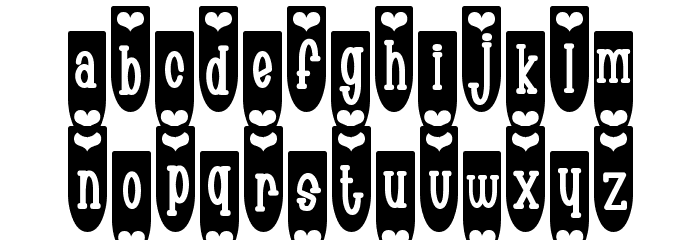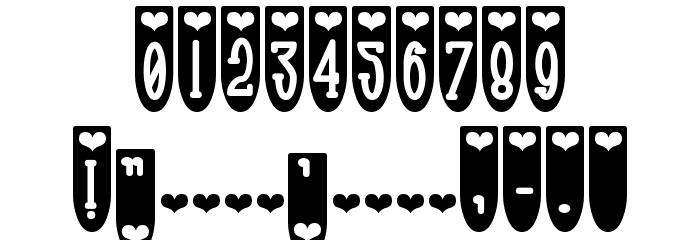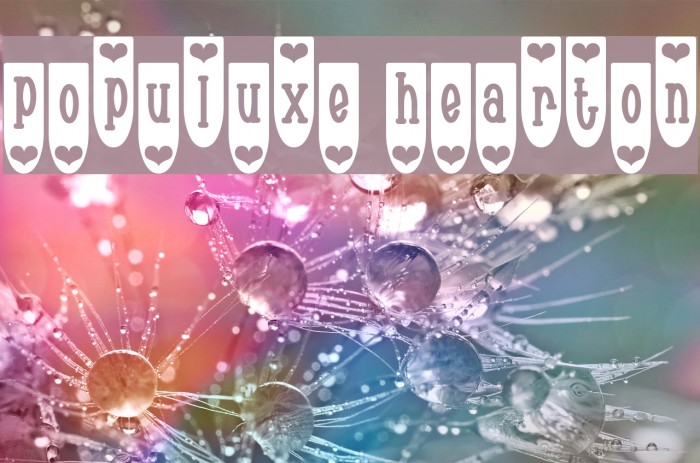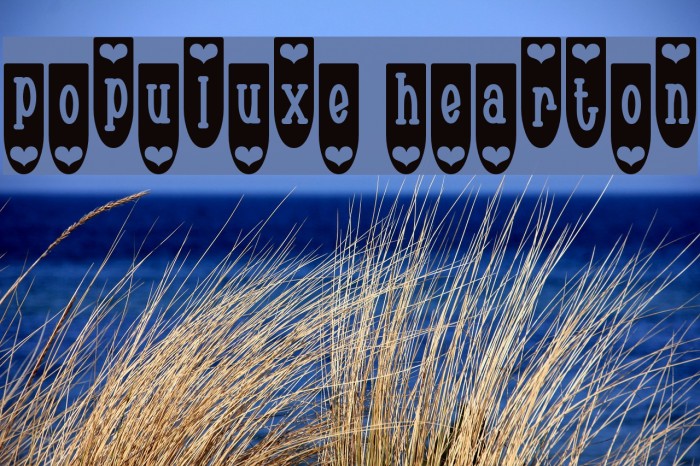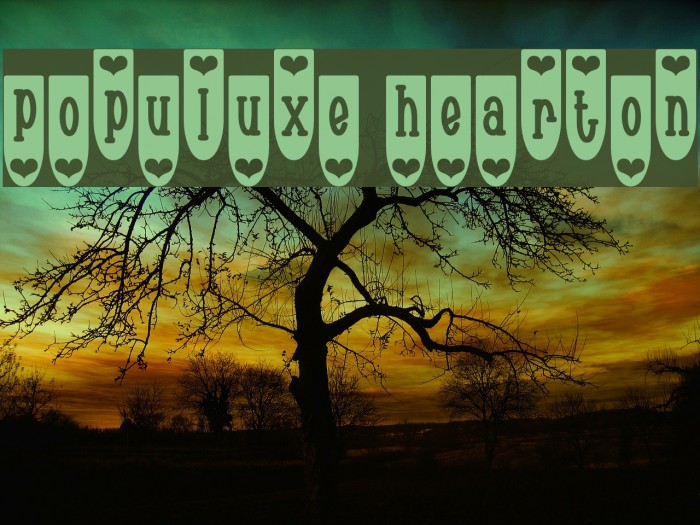
Populuxe Hearton Font
This playful and decorative font features characters enclosed within shield-like shapes, each topped with a heart motif. The letters are bold and have a whimsical, almost cartoonish quality, making them stand out in any design. The uppercase and lowercase letters maintain a consistent style, with the numbers and special characters following suit. The heart detail adds a unique touch, making it ideal for designs that require a fun and loving vibe. The font's distinct appearance makes it suitable for creative projects where a bold statement is needed.
A playful, heart-themed decorative font with bold characters enclosed in shield shapes.
- Font: Populuxe Hearton
- Proposed Projects: Ideal for Valentine's Day cards, children's book covers, playful branding, and party invitations.
- Use Case: Logos, Headlines, Invitations